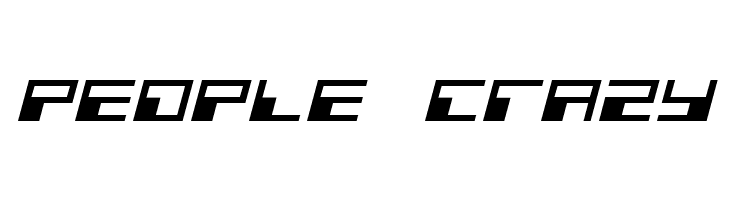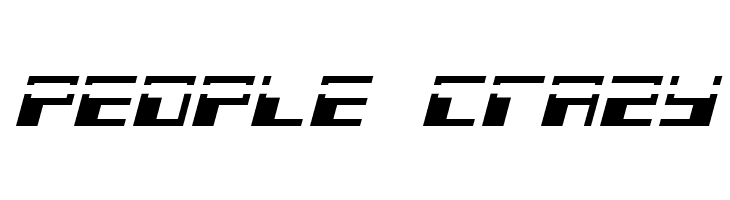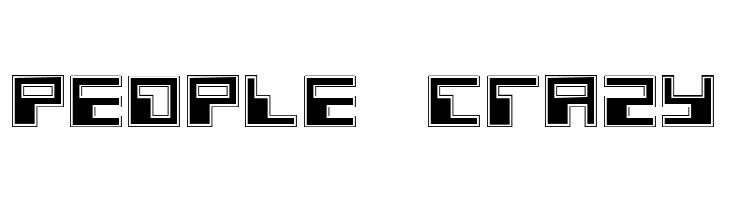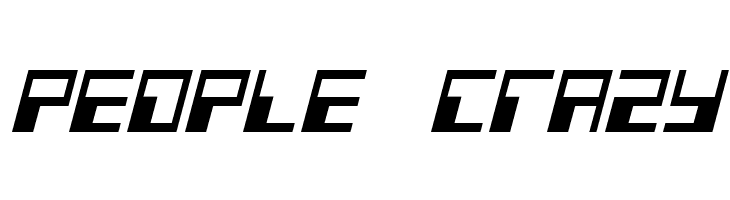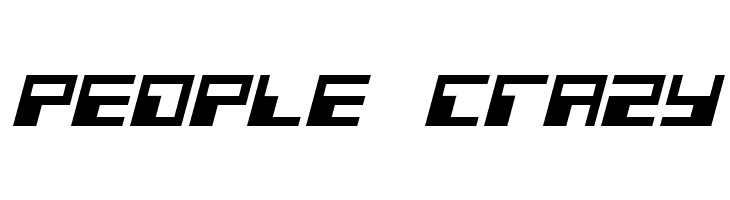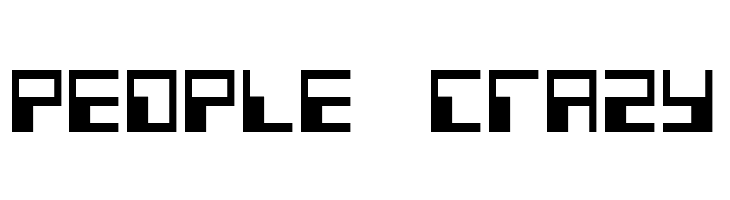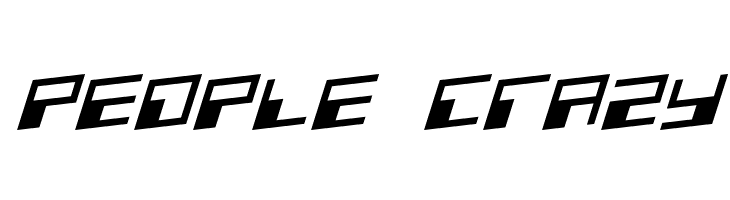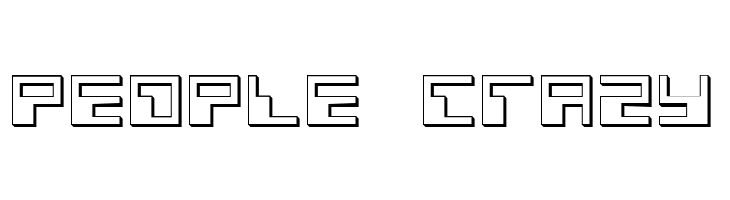
Questlok Gradient Italic Font
A bold, futuristic italic font with sharp angles and expanded width.
A futuristic, angular italic font with a bold and dynamic style.
A bold, geometric font with a futuristic and dimensional style.
A futuristic, angular, and condensed italic font with bold strokes.
A bold, italicized font with a futuristic and dynamic design.
A bold, geometric font with a futuristic, digital style.
A bold, angular font with a futuristic, dynamic slant.
A bold, 3D outline font with a futuristic and geometric style.